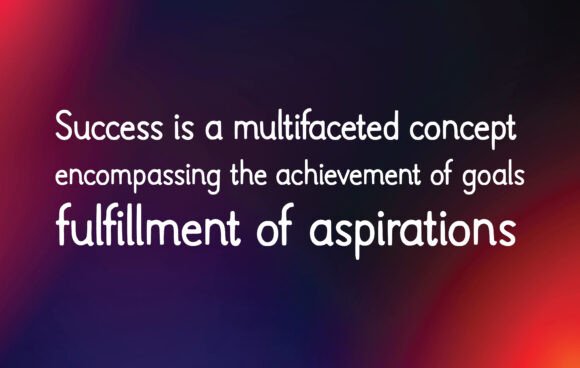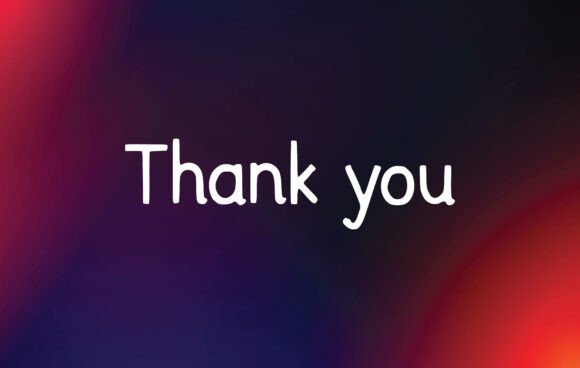
Introduction to Maurice Font
Maurice is a lovely and beautiful handwritten font.
Key Features of Maurice Font
Why Choose Maurice Font?
Maurice Font offers exceptional quality and versatility, making it a valuable addition to your design toolkit. Whether you’re creating for personal projects or commercial use, Maurice Font delivers professional results.